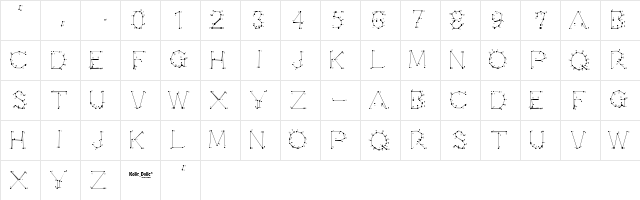
0Pointe-Fait Regular Free Font
0Pointe-Fait Regular
Foundry: Kolle_Bolle
Designer: Olivier Chabanis Christophe Chelmis
Design Context for 0Pointe-Fait
0Pointe-Fait is a composed and adaptable typeface that performs quietly and consistently across a wide range of design contexts.